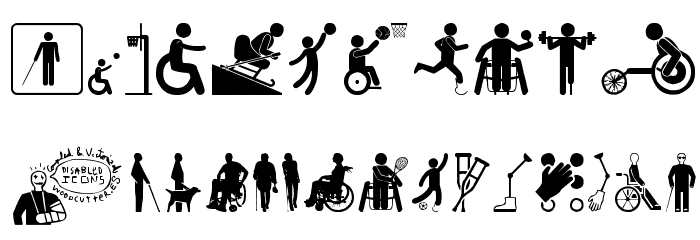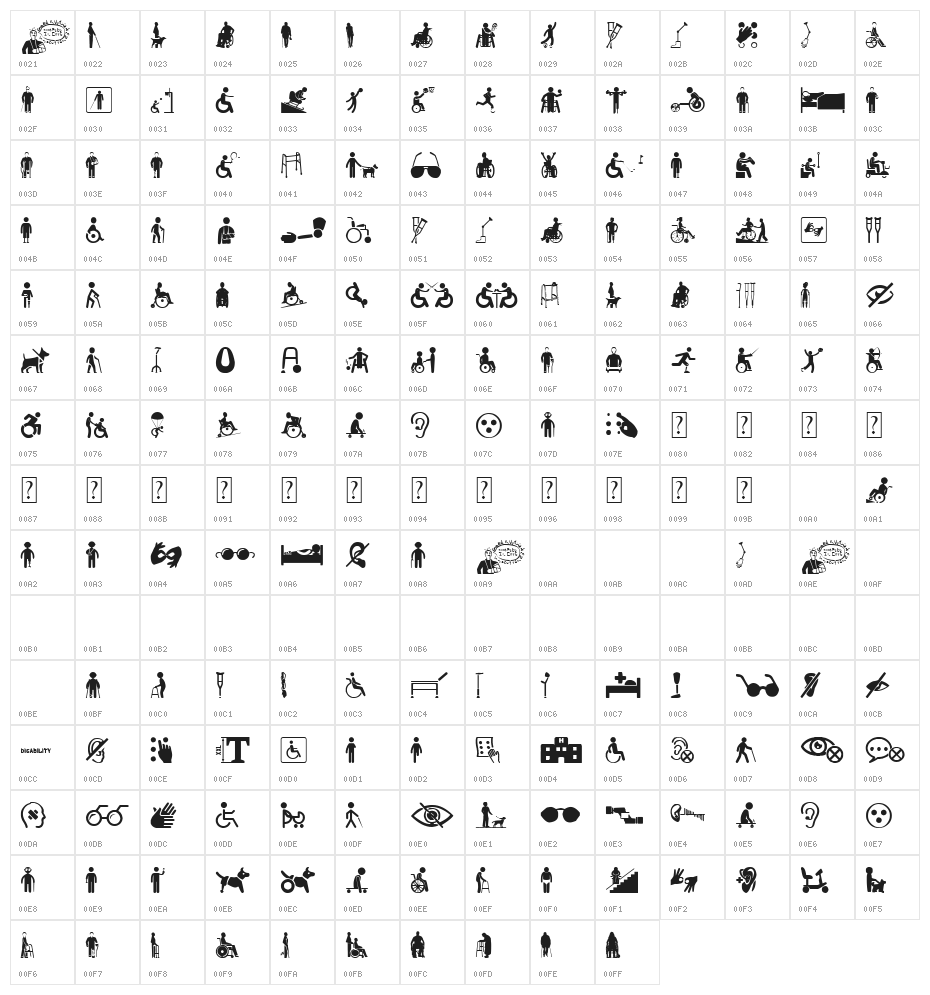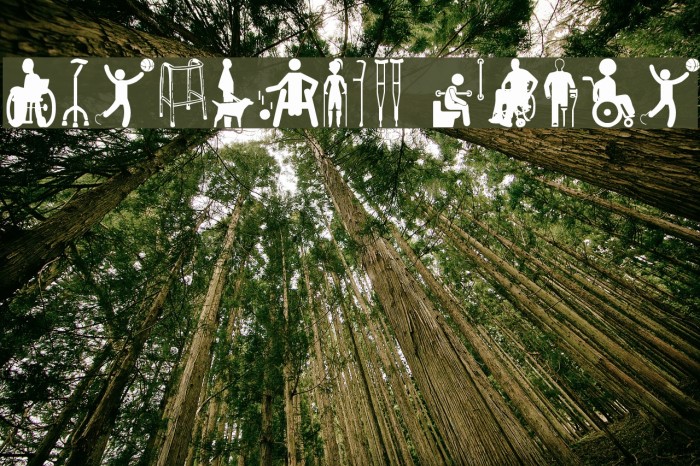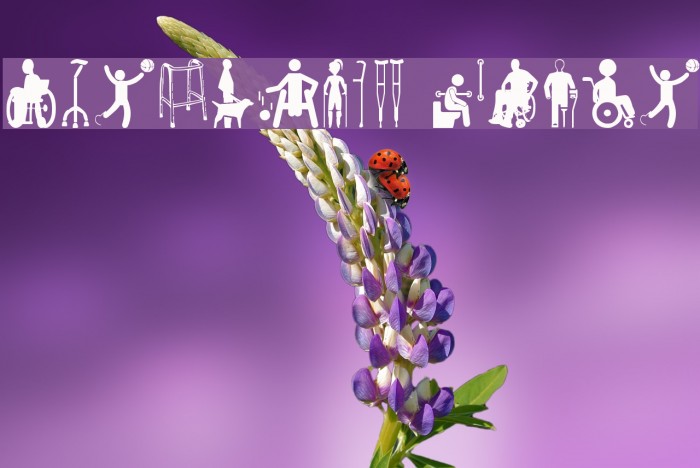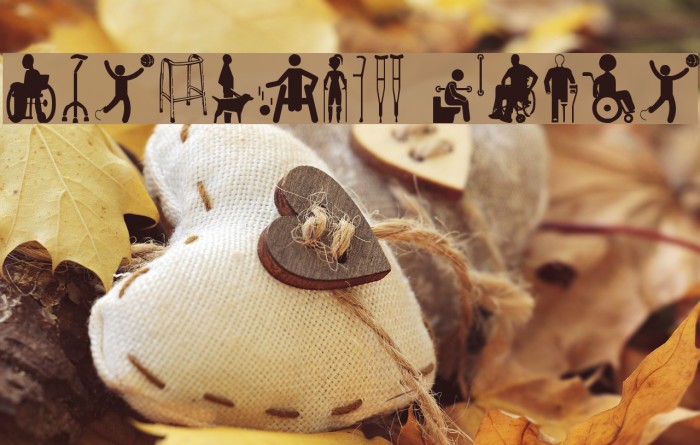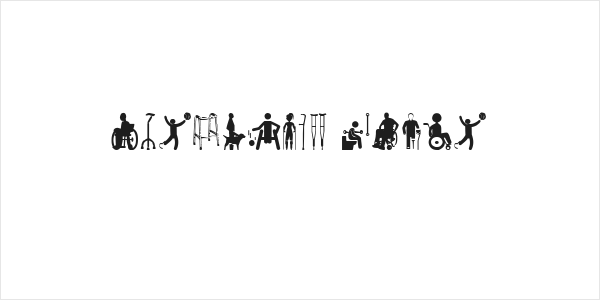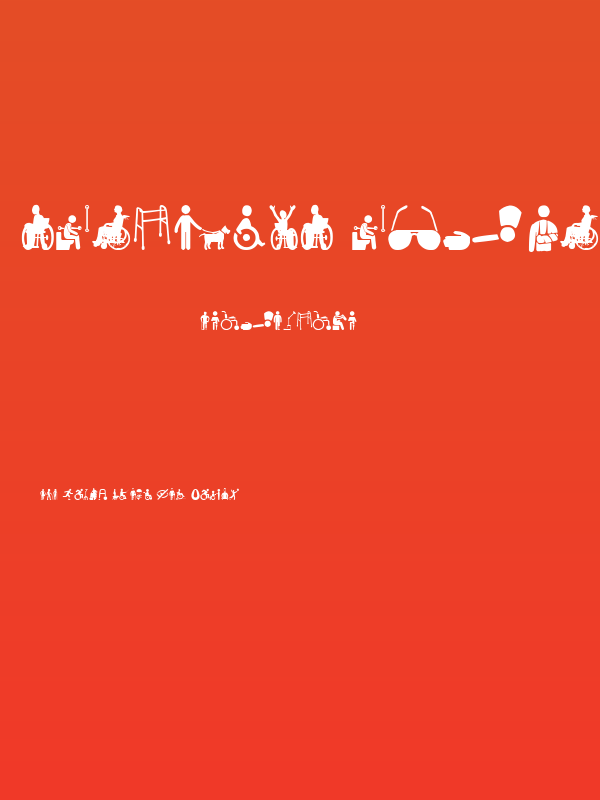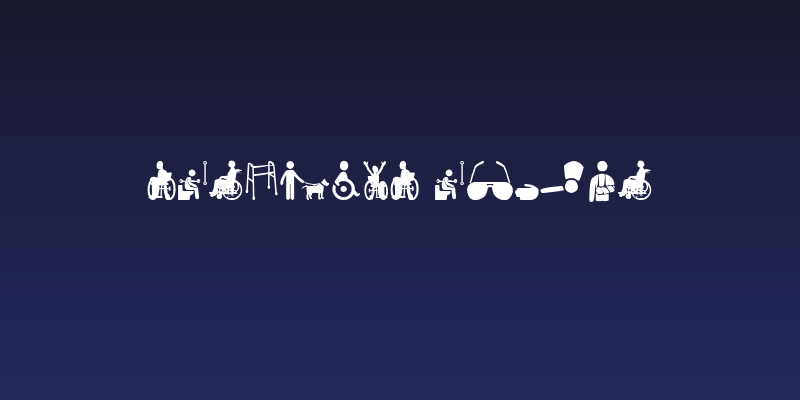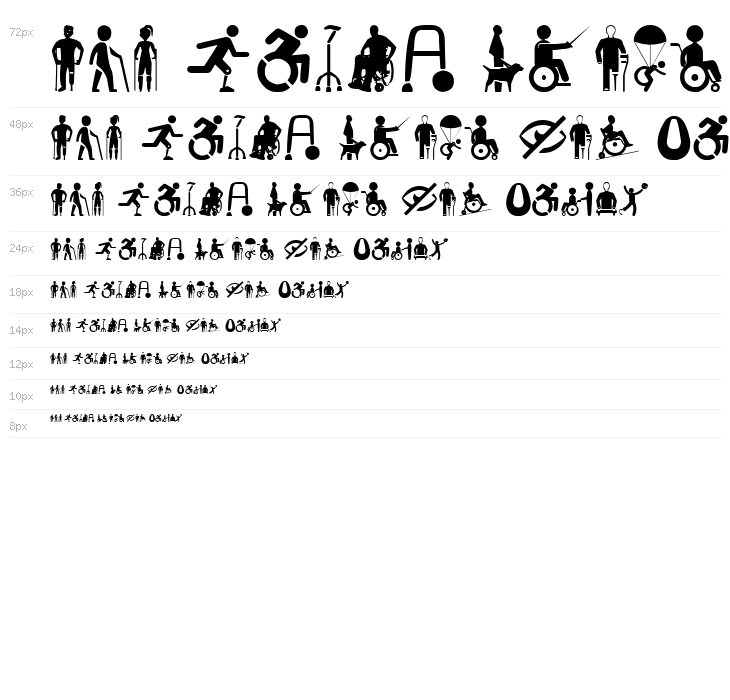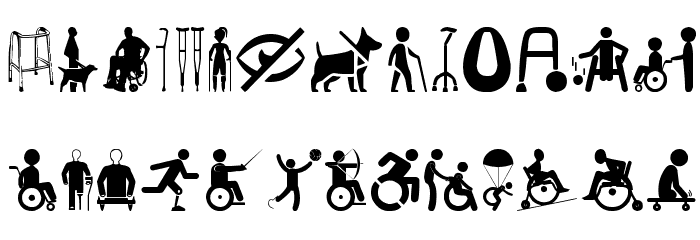
Disabled Icons Font
Disabled Icons Description
A collection of bold, high-contrast pictograms representing various disabilities, assistive devices, and inclusive activities. The icons are simple, geometric, and highly legible, designed for universal accessibility and clear communication.
| Overall Style | Modern, Functional, Pictographic |
| Use Case | Signage, Infographics, Instructional materials, Awareness campaigns |
| Proposed Projects | Wayfinding signage, accessibility guides, public information materials, healthcare brochures, educational resources. |